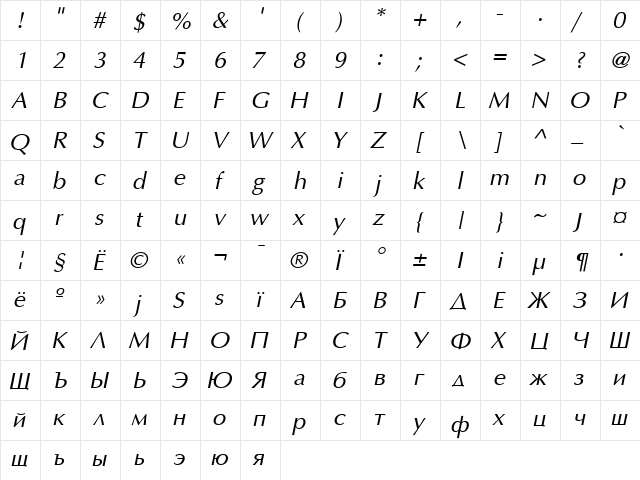
AGOptimaCyr Oblique
AGOptimaCyr takes a measured approach to typography — its balanced proportions and neutral character make it a reliable workhorse for both digital and print work. Its italic angle brings a sense of urgency and motion to the letterforms.